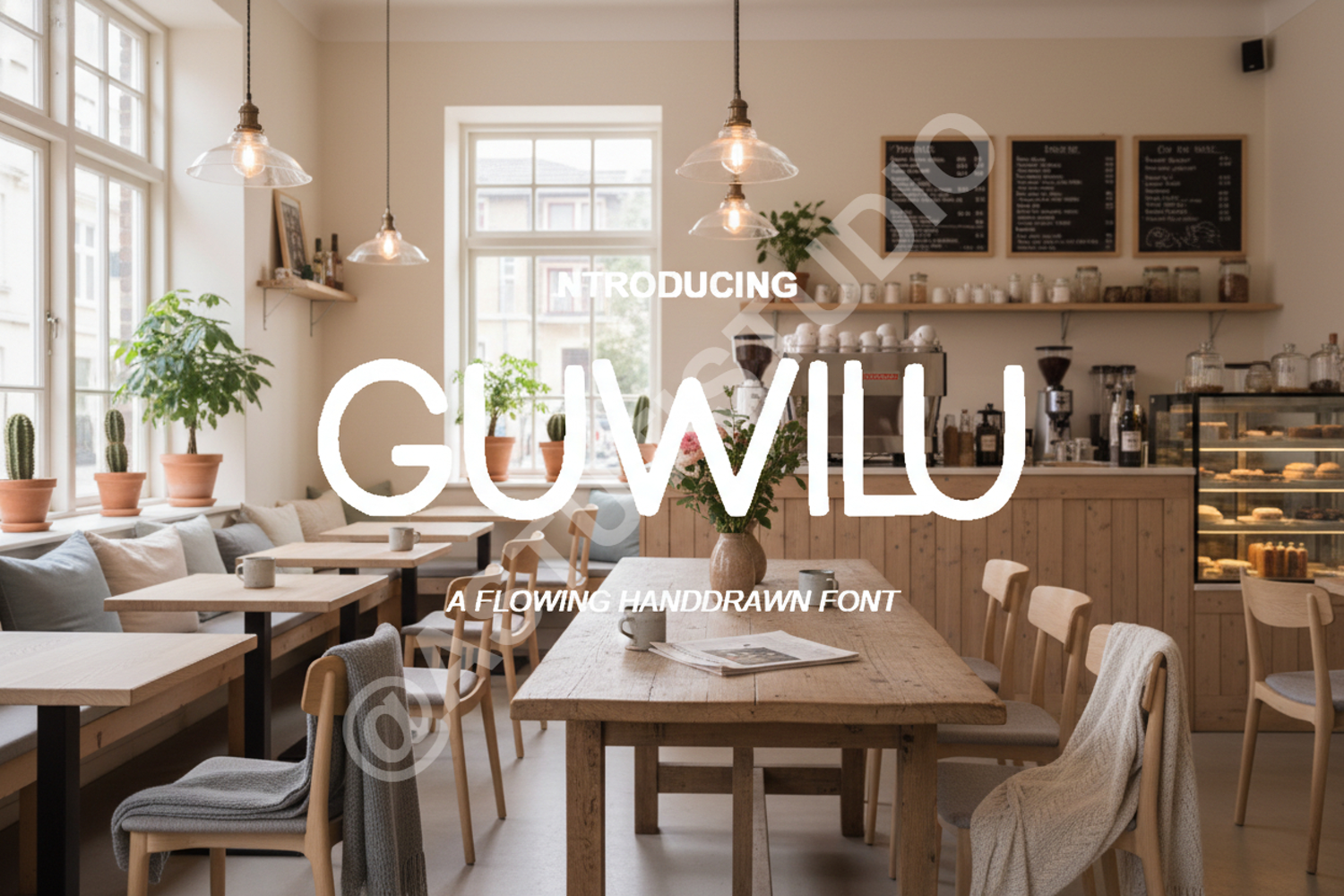
Guwilu - Elegant Modern Serif Display Font
Guwilu
Guwilu is a premium serif font meticulously crafted to bring a touch of sophistication and modern elegance to your creative projects. With its balanced proportions and clean lines, Guwilu offers a versatile aesthetic that works seamlessly across digital and print mediums. Whether you are looking for a bold header or a refined logo typeface, this font delivers professional results every time.
- Premium Branding and Identity: Create memorable logos and cohesive brand guidelines.
- Editorial Design: Perfect for high-end magazine layouts, book covers, and headlines.
- Wedding Stationery: Add a touch of class to invitations, menus, and place cards.
- Social Media: Elevate your aesthetic for Instagram quotes and Pinterest graphics.
- Product Packaging: Ideal for luxury goods, cosmetics, and fashion labels.